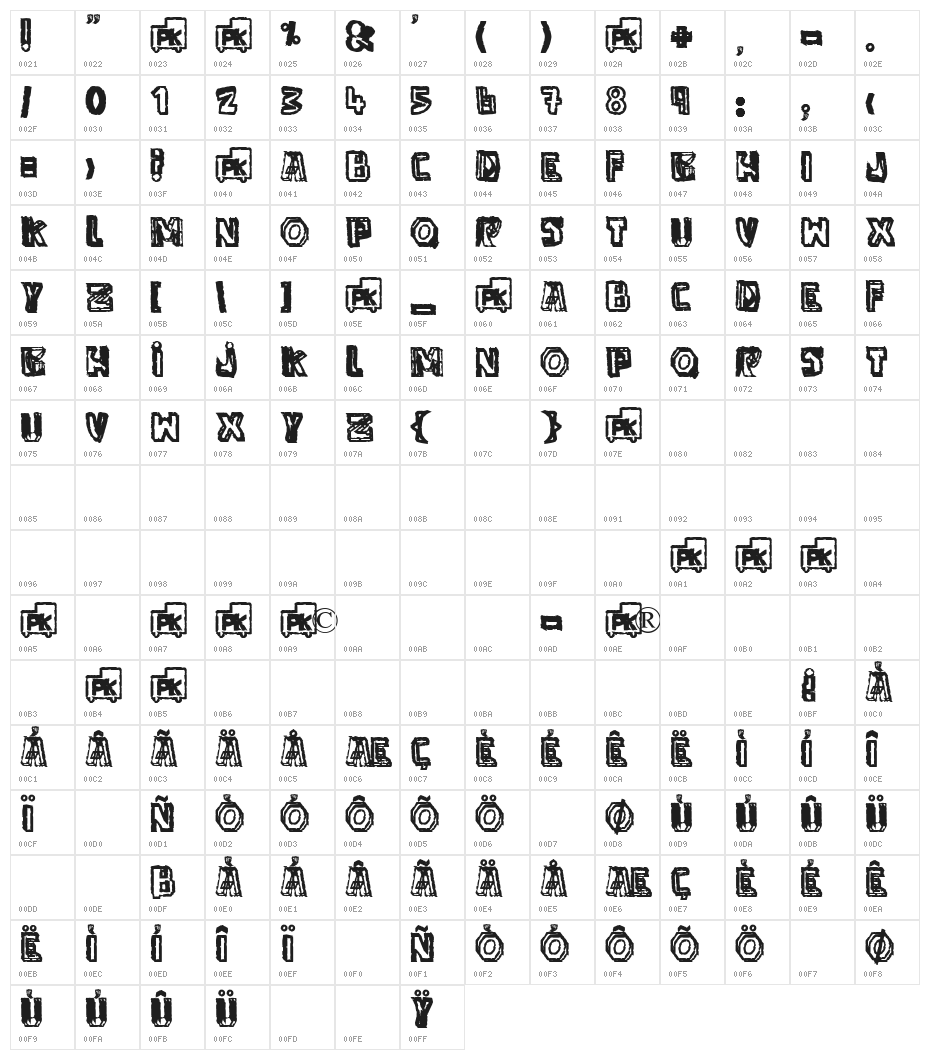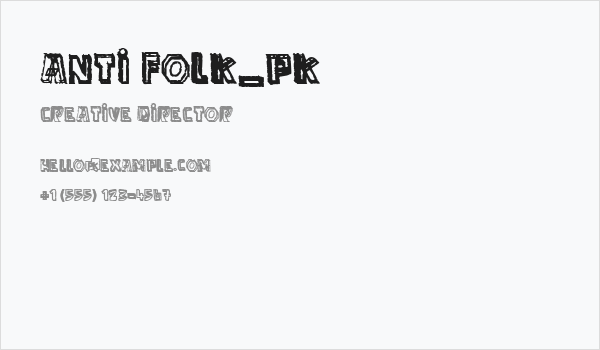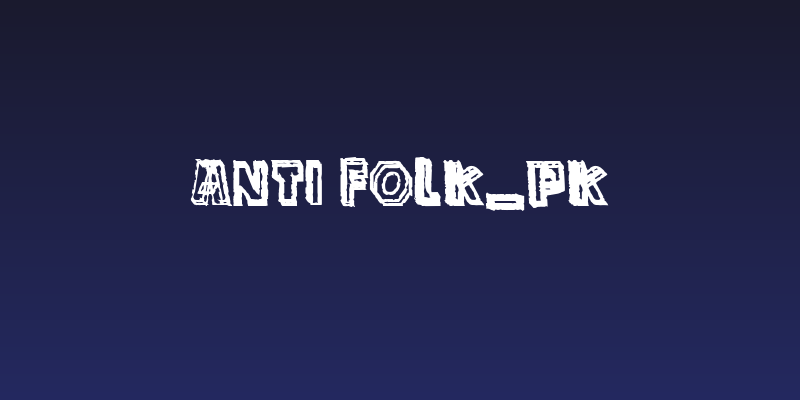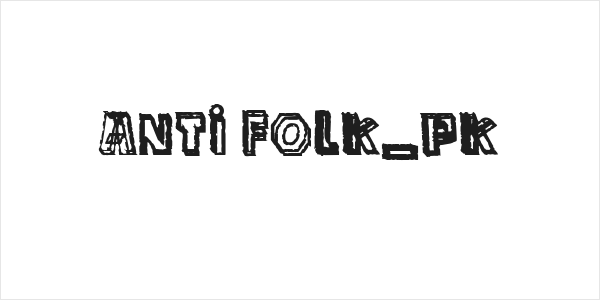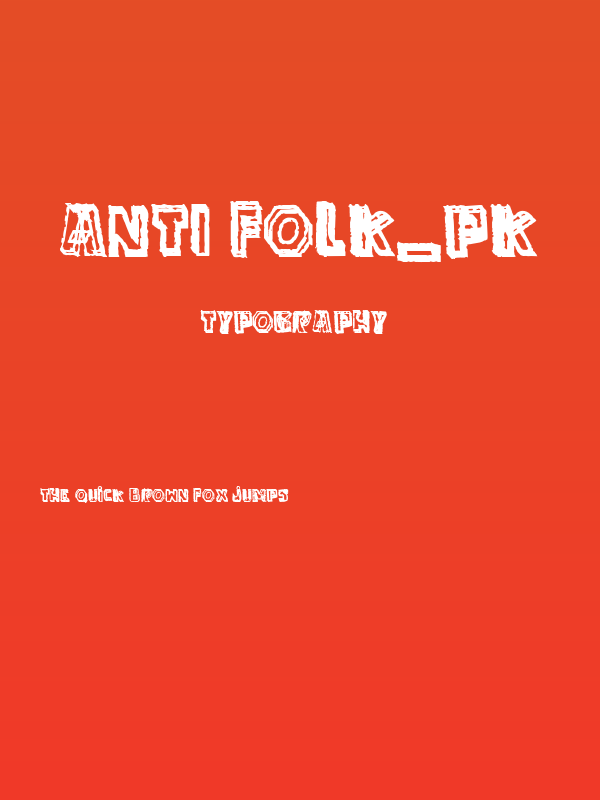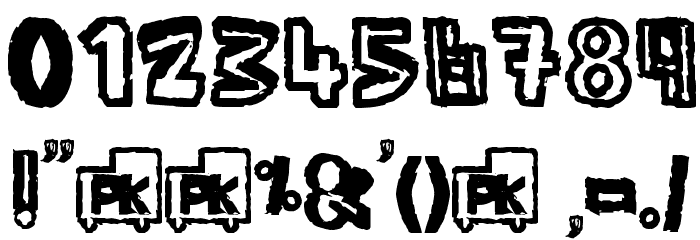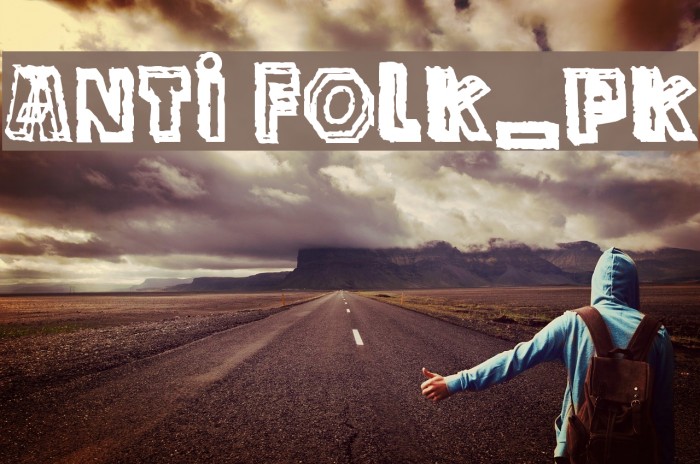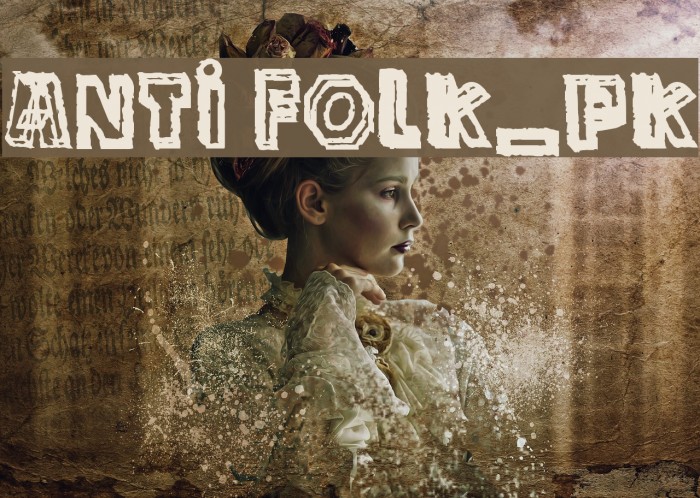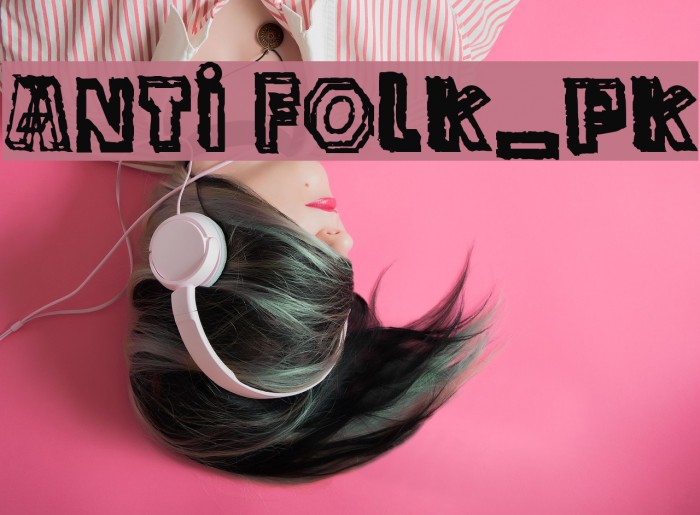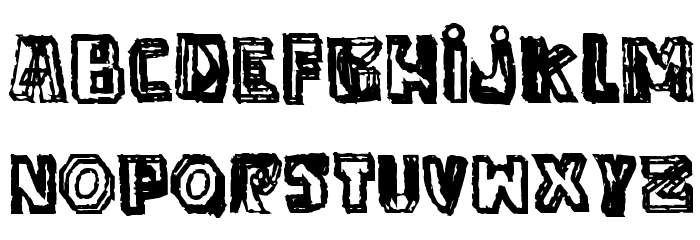
anti folk_pk Font
anti folk_pk Description
This font features a bold, hand-drawn style with a rough, textured appearance. Each character is uniquely crafted with irregular lines and a sketch-like quality, giving it a raw and artistic feel. The uppercase and lowercase letters maintain a consistent height, while the numbers and special characters follow the same rugged design. The font's uneven strokes and playful design make it stand out, adding a sense of creativity and individuality to any project.
| Overall Style | Artistic, Raw, Creative |
| Use Case | Logos, Posters, Album Covers |
| Proposed Projects | Ideal for album covers, poster designs, and creative branding projects that require a unique, artistic touch. |